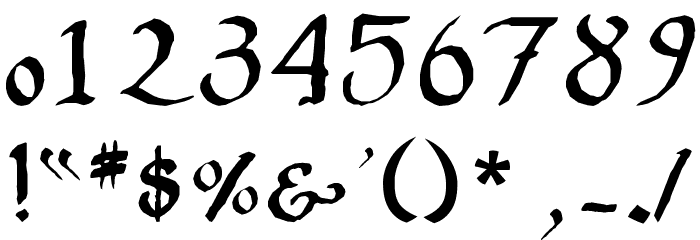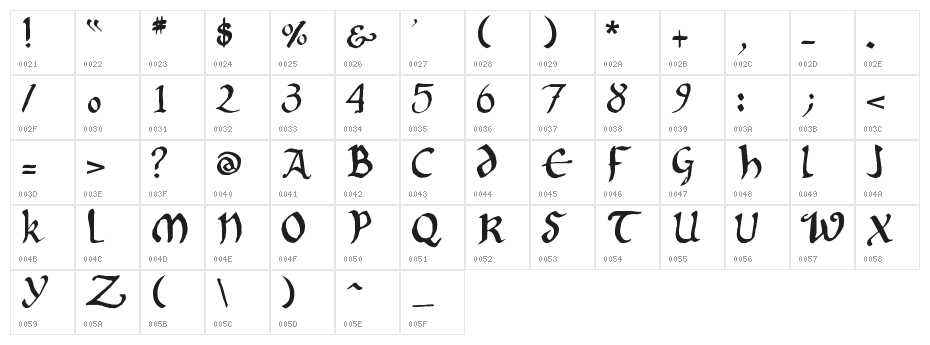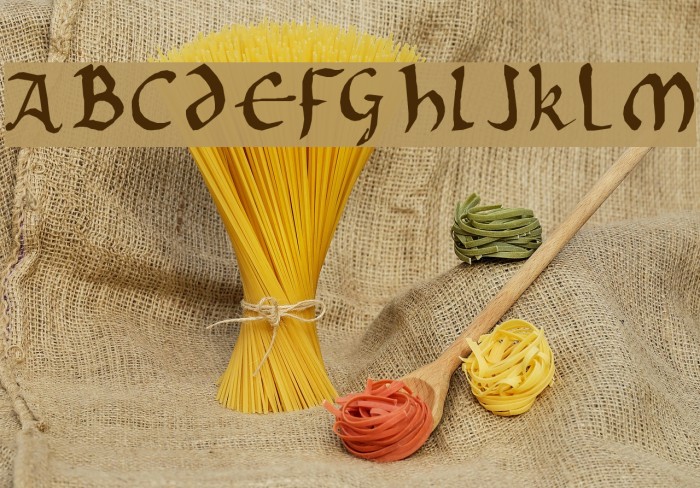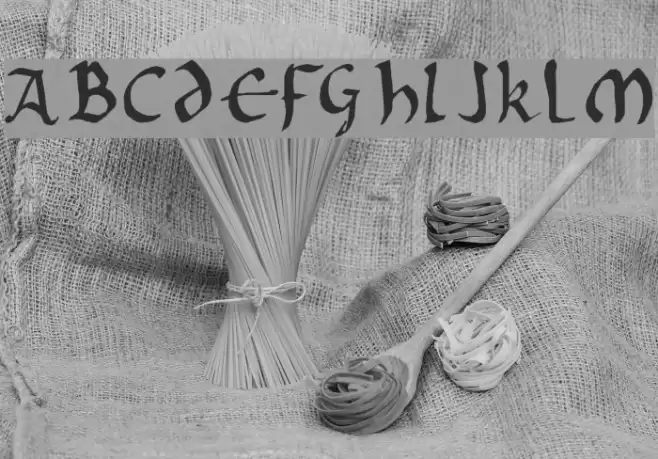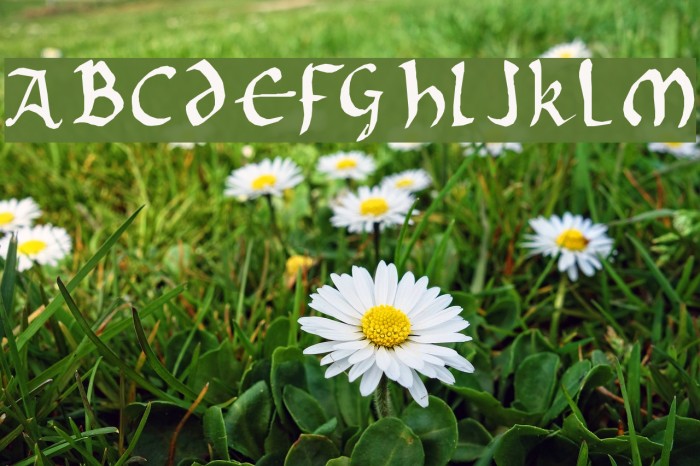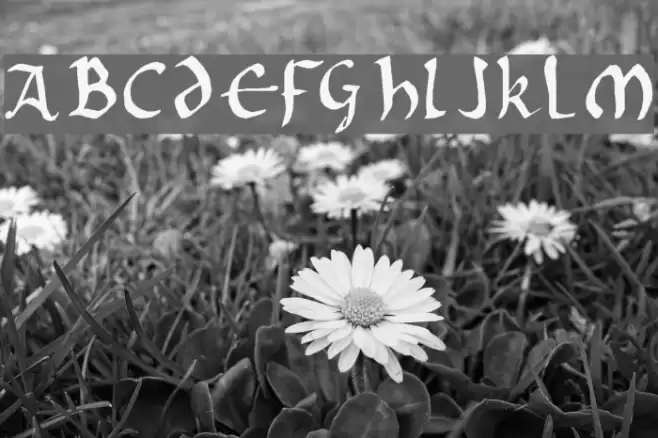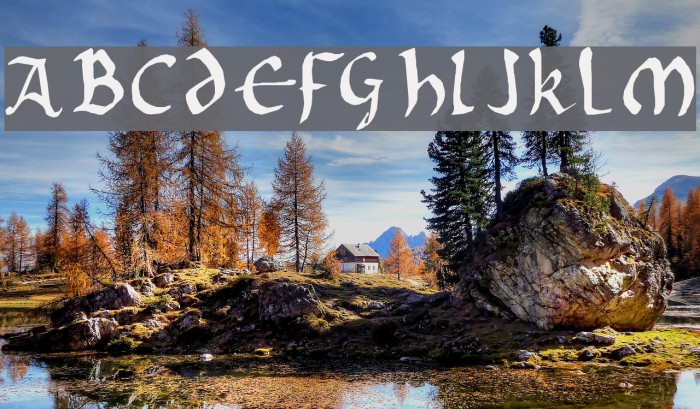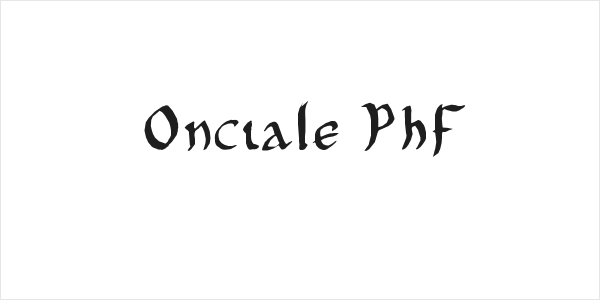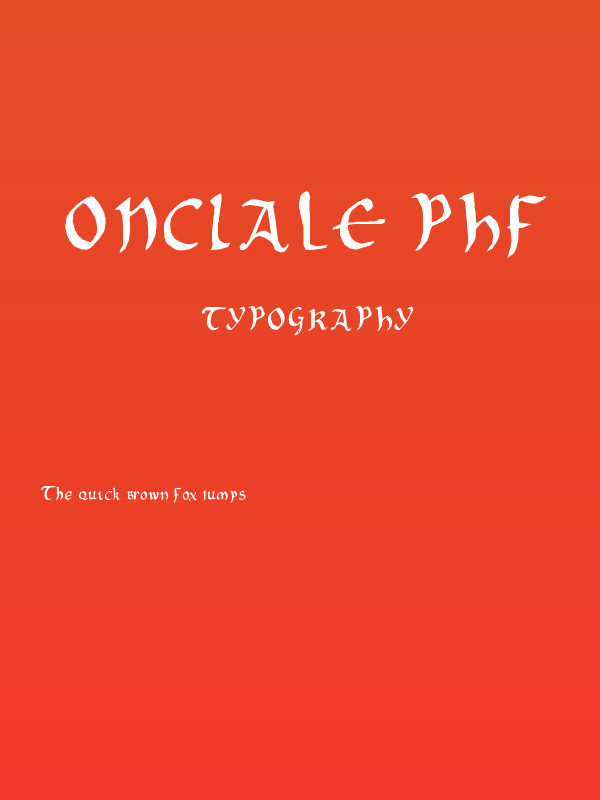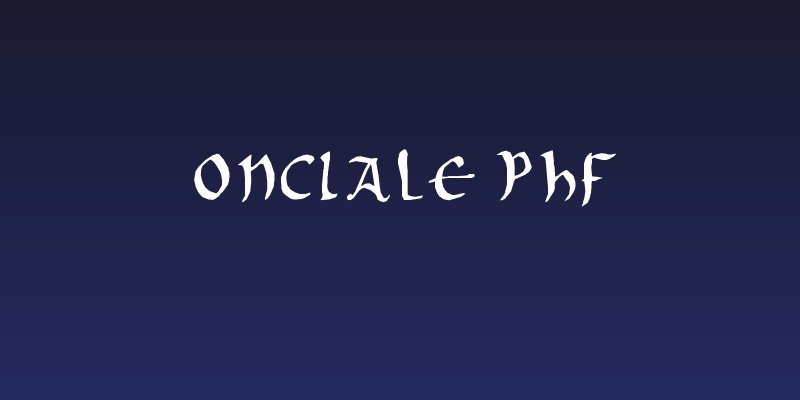
Onciale PhF Font
Onciale PhF Description
This font features a distinctively medieval style, reminiscent of historical scripts used in ancient manuscripts. The characters are bold and slightly angular, with a flowing, calligraphic touch that adds an air of elegance and tradition. The uppercase letters are particularly ornate, with unique flourishes that enhance their visual appeal. The lowercase letters maintain a consistent style, offering a harmonious blend of readability and decorative flair. Numbers and special characters are crafted with the same attention to detail, ensuring a cohesive look across all elements.
Overall StyleVintage
Use CaseHeadlines, Logos, Decorative text
Proposed ProjectsIdeal for historical documents, fantasy-themed projects, book covers, and decorative invitations.